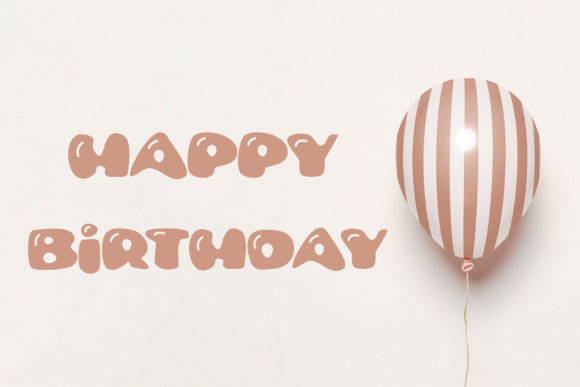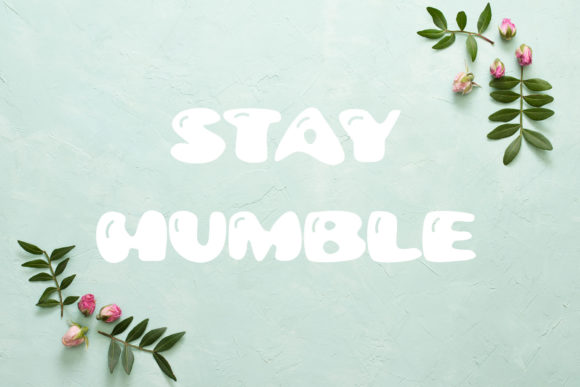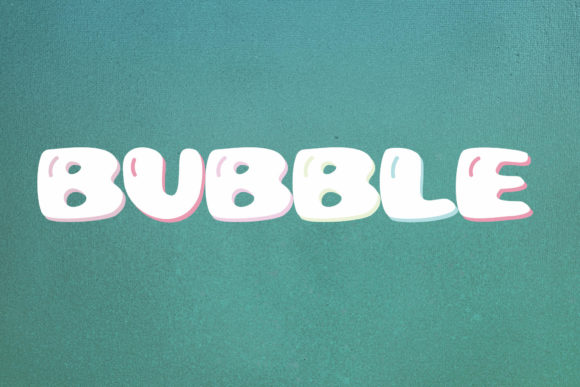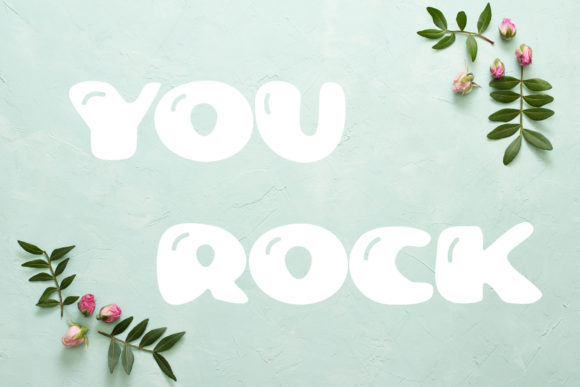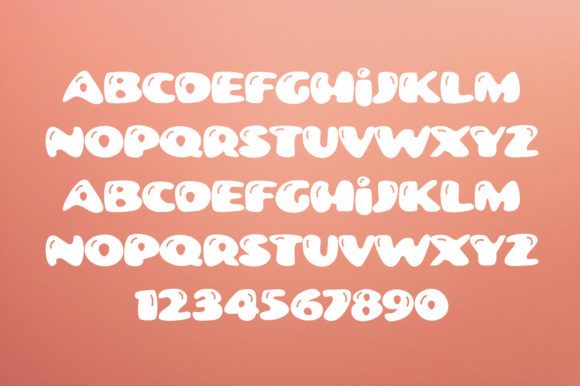
The Joy of Typography: Discovering the Balloon Bubble Font
As a designer, have you ever found yourself staring at a blank canvas, waiting for the perfect font to bring your creative idea to life? For me, that moment came when I was designing a children’s book cover, and I stumbled upon the Balloon Bubble Font. Its whimsical and playful nature immediately captured my attention, and I knew I had to learn more.
The Balloon Bubble Font is a display font that exudes cuteness and joy, making it a perfect addition to any design project related to education or children. With its unique character, this font is sure to bring a smile to the faces of your audience. As a designer, you’ll appreciate the versatility and value that this font brings to your creative endeavors.
Balloon Bubble Font Key Features
- Font Style: A playful, rounded font with a balloon-like appearance, suitable for children’s books, party invitations, and other fun designs.
- Unique Characteristics: The font features a unique bubble-like design, with each letter having a rounded, three-dimensional appearance, giving it a playful and whimsical feel.
Designer Review: Balloon Bubble Font
Overall, I was excited to dive into the Balloon Bubble Font, and while it has some fun and creative elements, it also has its limitations. ✨ Let’s start with the positives.
- Unique and playful style – The font’s bubbly, balloon-like aesthetic is perfect for whimsical and child-friendly designs.
- Customization options – The font offers a range of weights and styles, allowing designers to create a unique look that suits their needs.
- Fun for creative projects – The font is ideal for projects like children’s books, party invitations, and social media graphics.
However, there are some limitations to consider. ⚠️ The font may not be the best choice for serious or professional designs, as it can come across as immature or unpolished.
- Limited legibility – The font’s bubbly style can make it difficult to read, especially at smaller font sizes.
- Not suitable for long blocks of text – The font is best used for short, punchy text or headlines.
Overall, the Balloon Bubble Font is a fun and creative option for designers looking to add some whimsy to their projects. However, it’s essential to use it judiciously and consider the tone and purpose of the design.
The Balloon Bubble Font is ideal for creating playful, whimsical designs and is commonly used in:
- Food and drink menus
- Party banners and signs
Remember to experiment with different font sizes, colors, and styles to get the most out of the Balloon Bubble Font.
Pacifico is a beautiful, elegant font that is perfect for designs that require a touch of sophistication. It is ideal for use in wedding invitations, greeting cards, and other romantic-themed designs. Compared to Balloon Bubble Font, Pacifico has a more refined and classic look, making it suitable for a wide range of design applications.
Great Vibes is a fun and playful font that is perfect for designs that need a bit of whimsy. It is ideal for use in children’s books, party invitations, and other designs that require a lighthearted and carefree tone. Compared to Balloon Bubble Font, Great Vibes has a more casual and relaxed look, making it suitable for designs that require a playful touch.